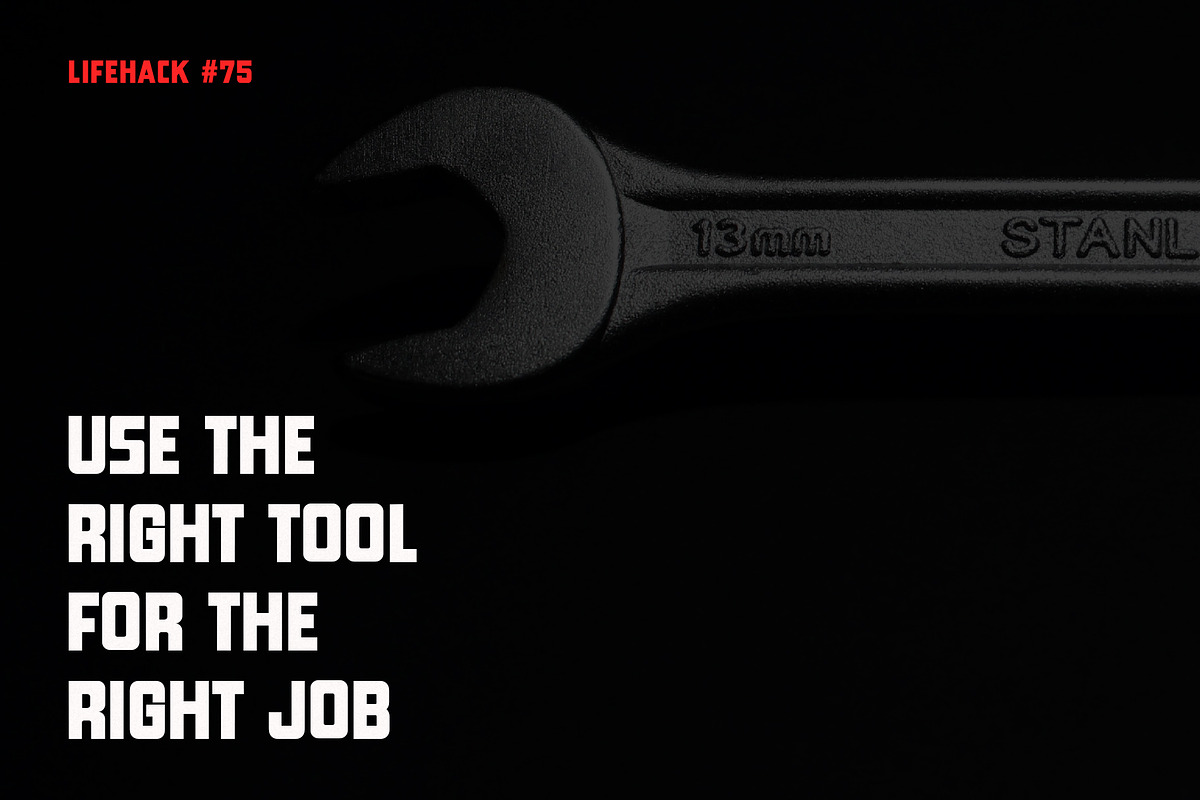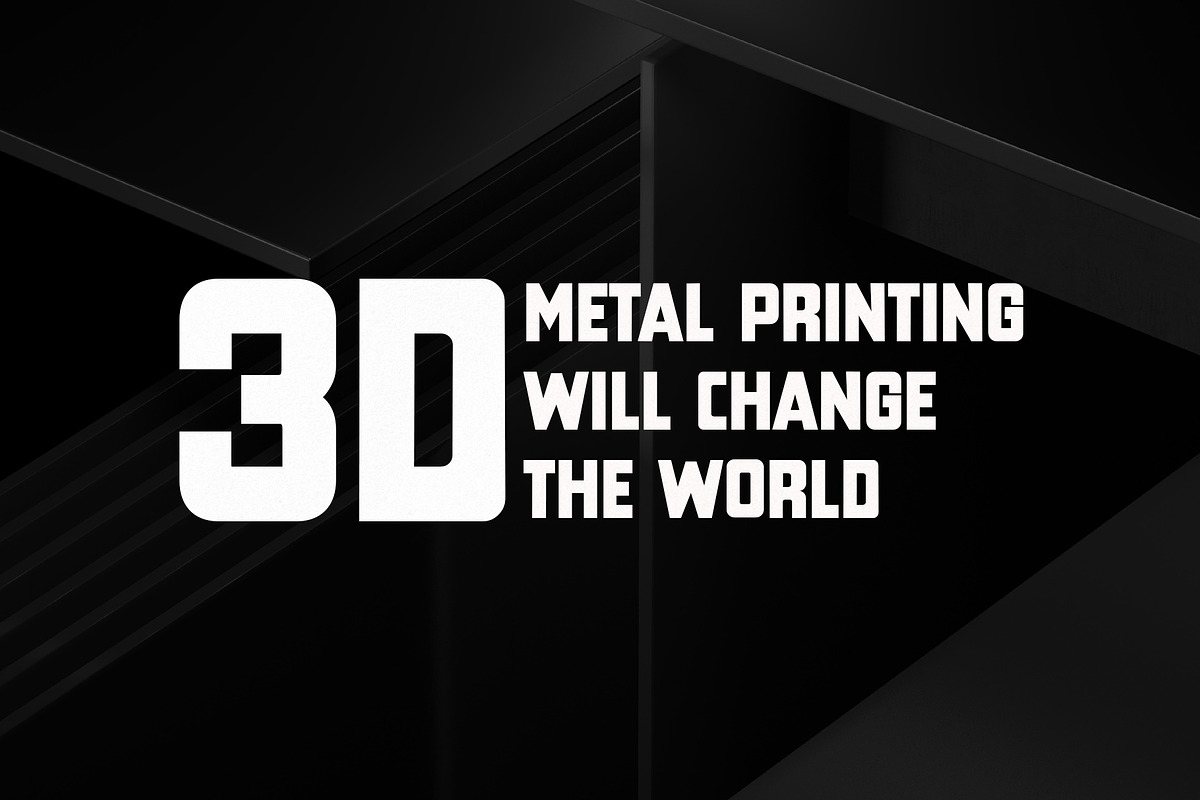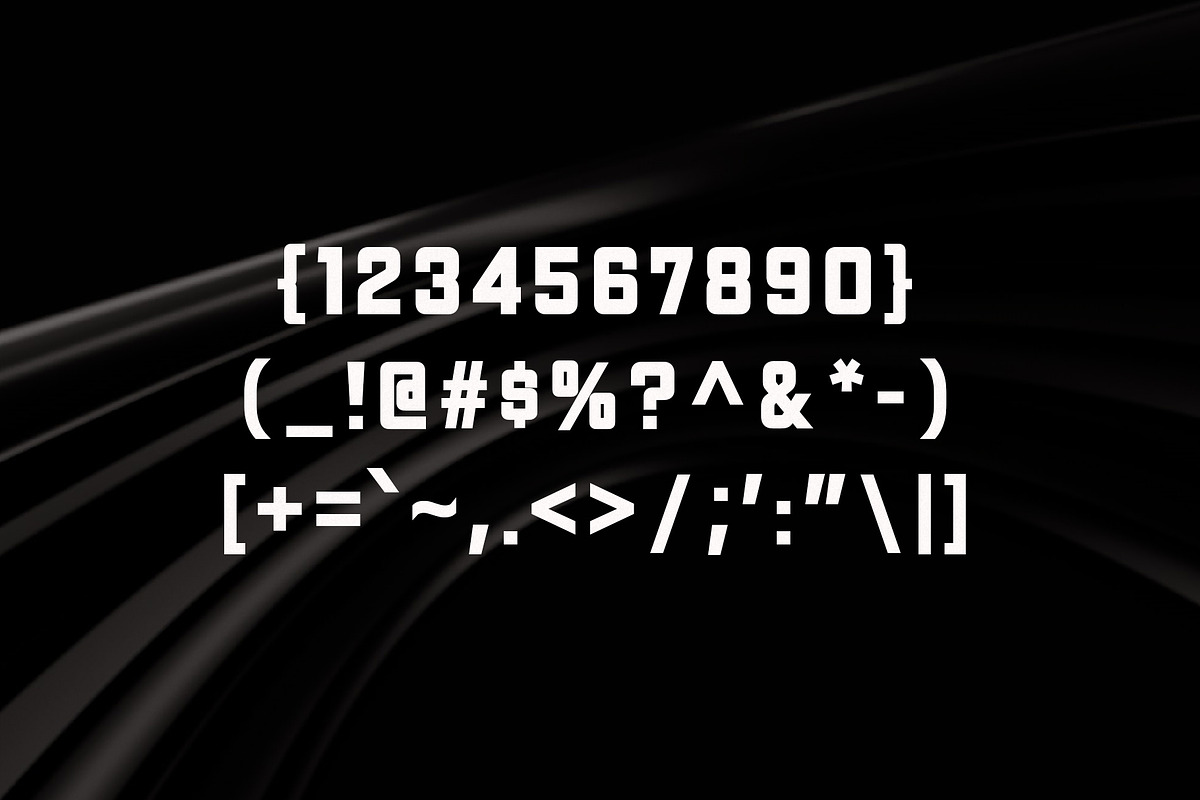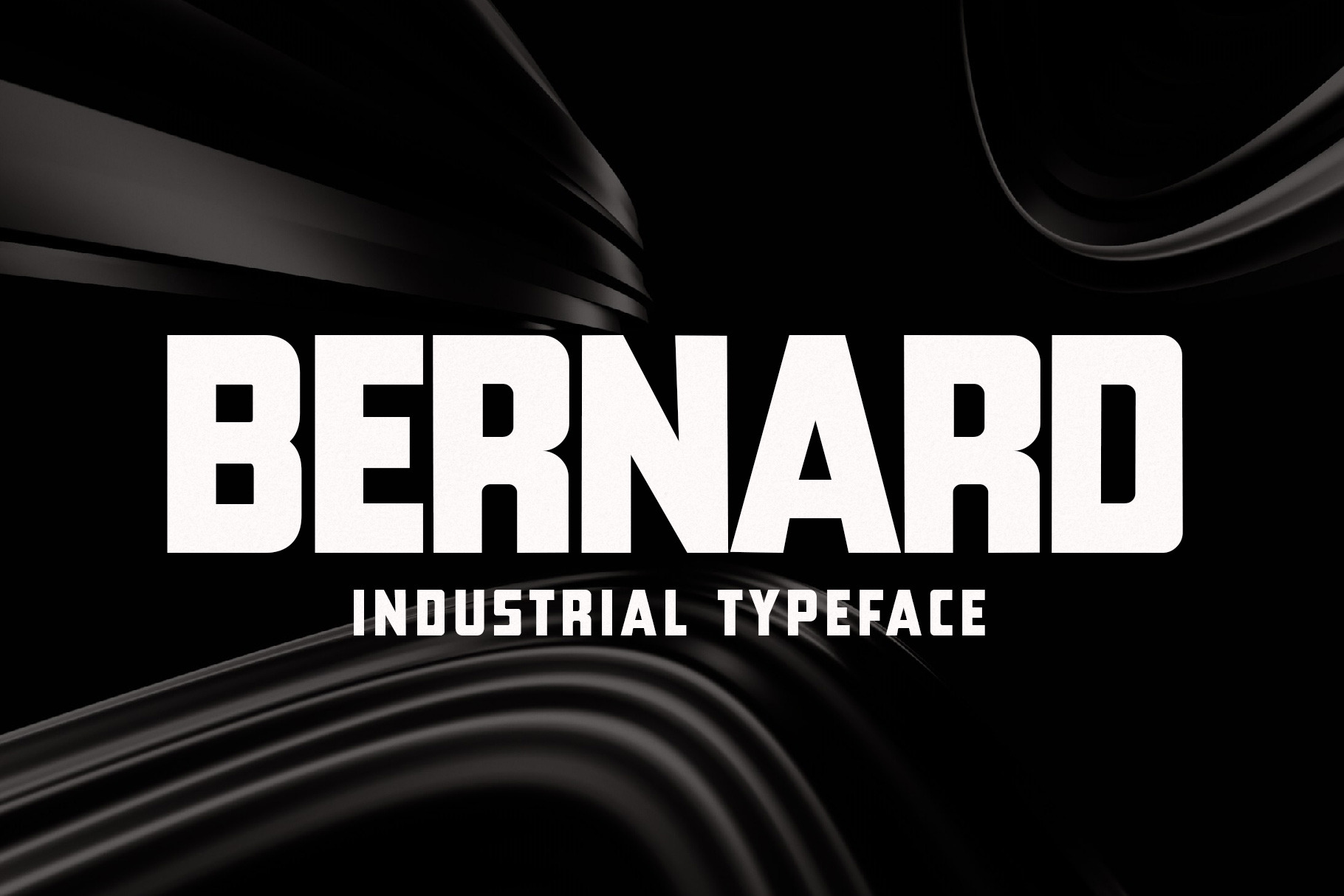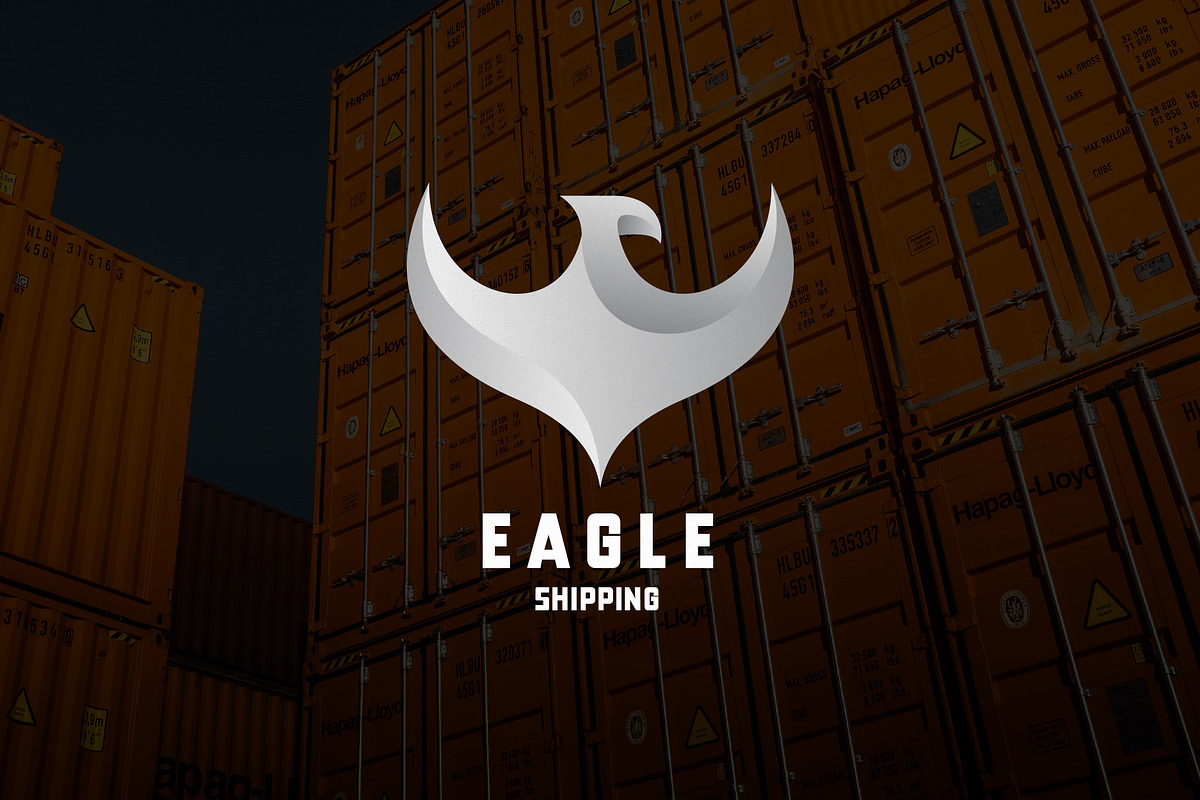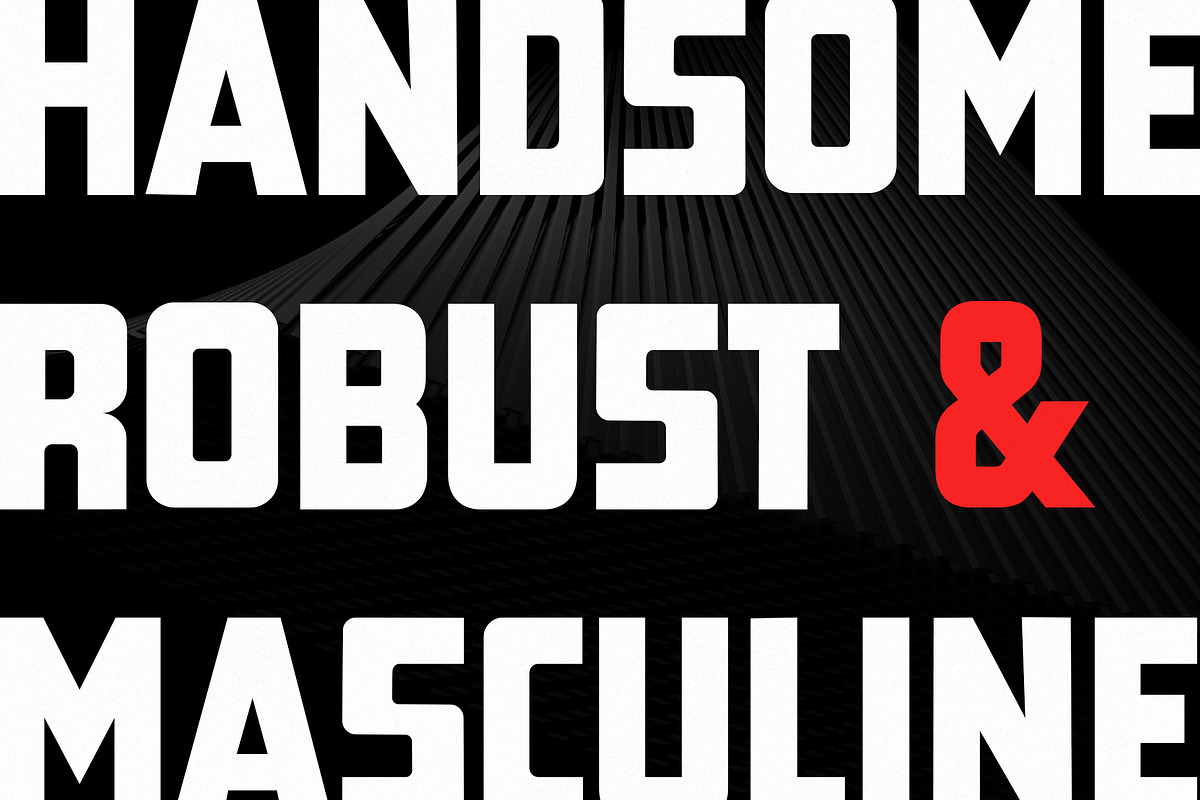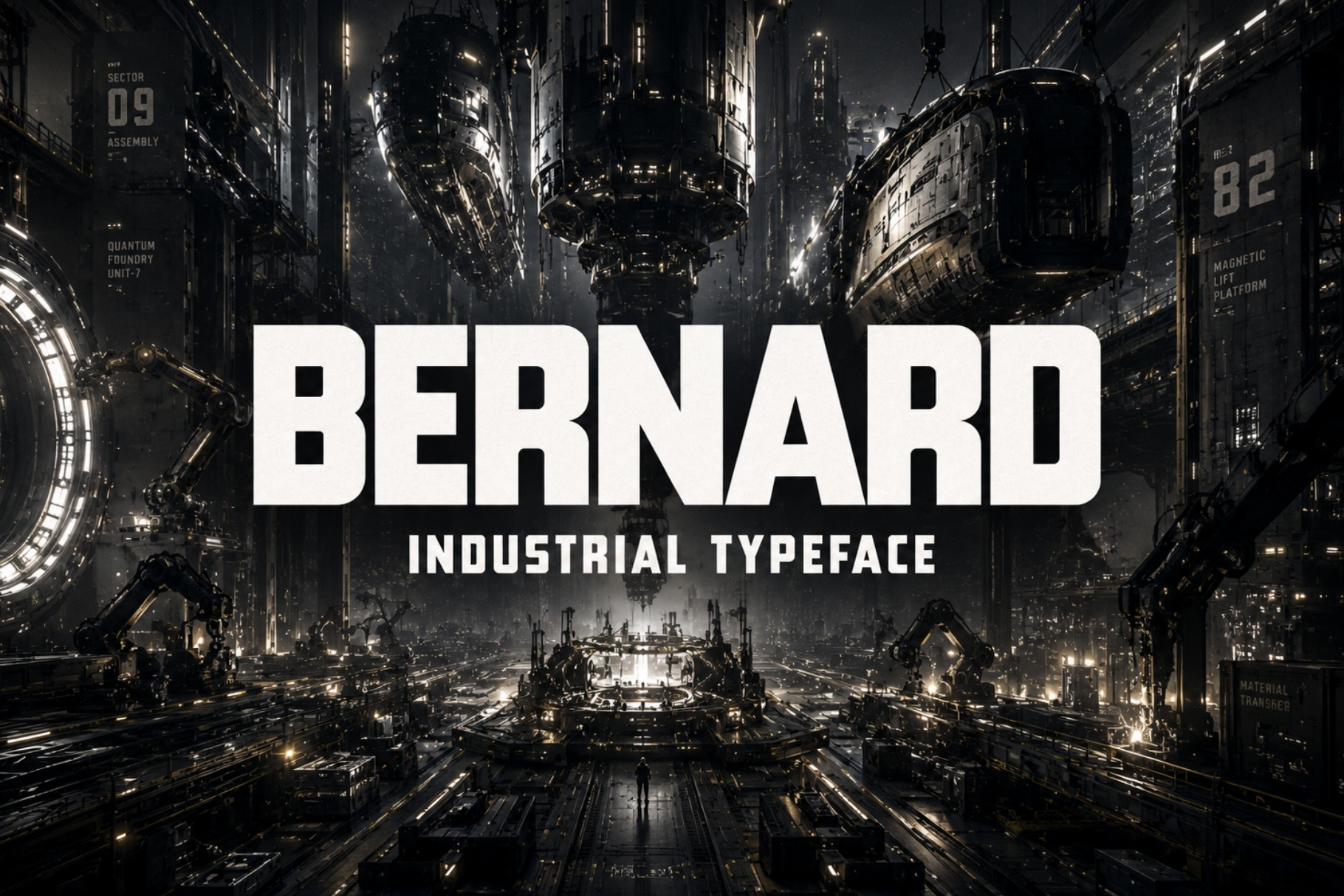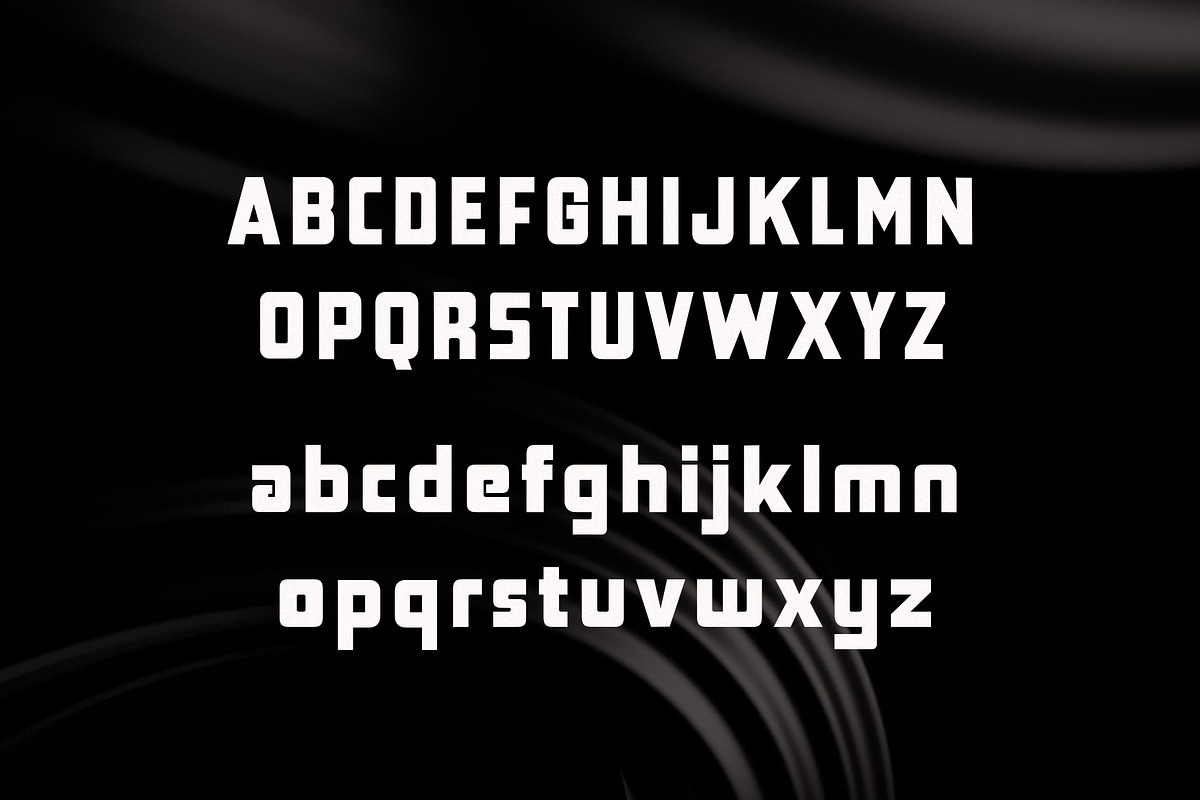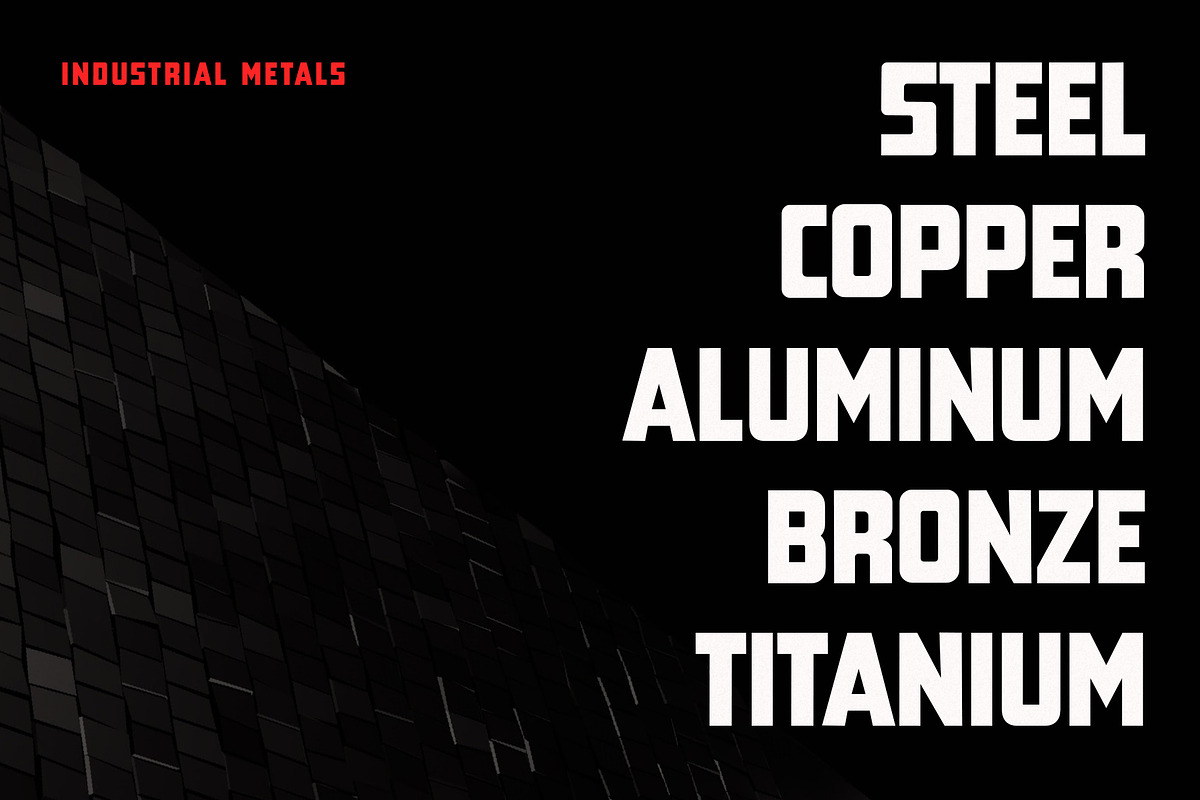
Bernard - Industrial Typeface
Bernard is a handsome, robust, and masculine typeface. This geometric font features lower and uppercase letters as well as all the special characters you would expect. Bernard is well suited for design projects centered on space, industrial design, video games, mathematics, futuristic films, science, web 3.0, UI/UX applications, and much more. If you want to convey your message cleanly and clearly, then Bernard is for you.